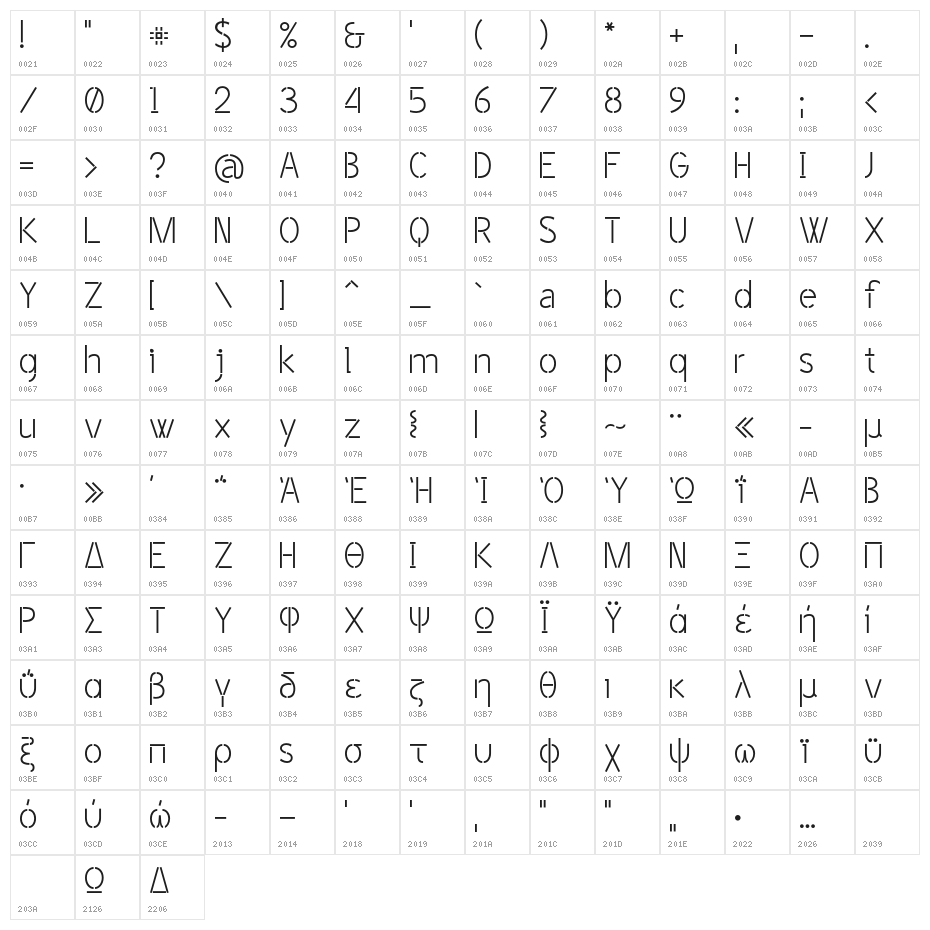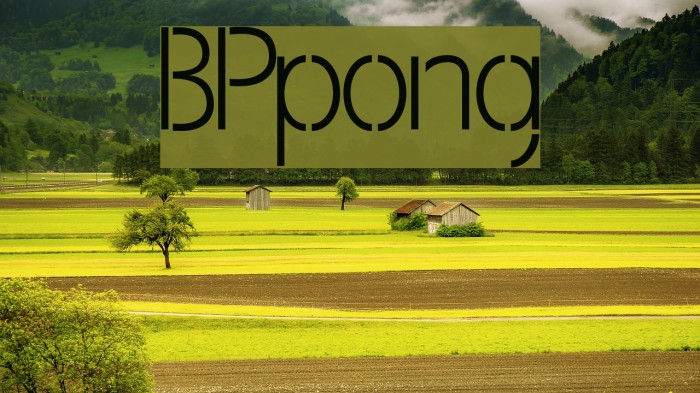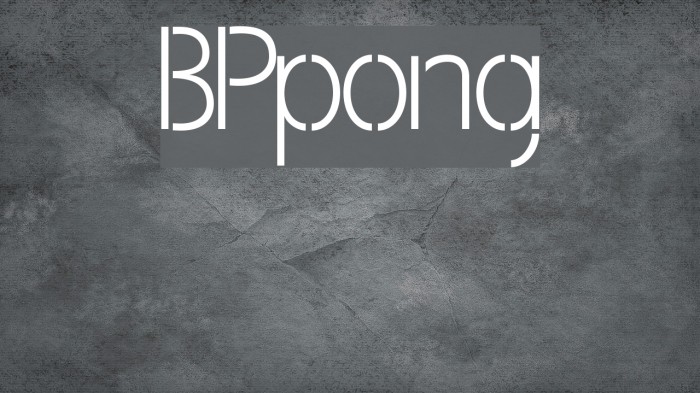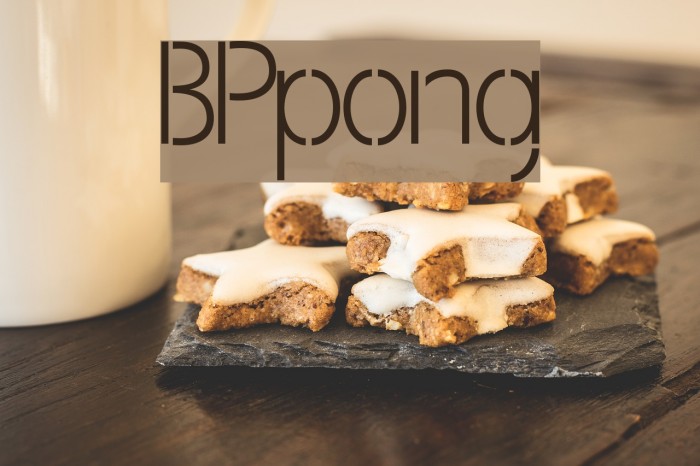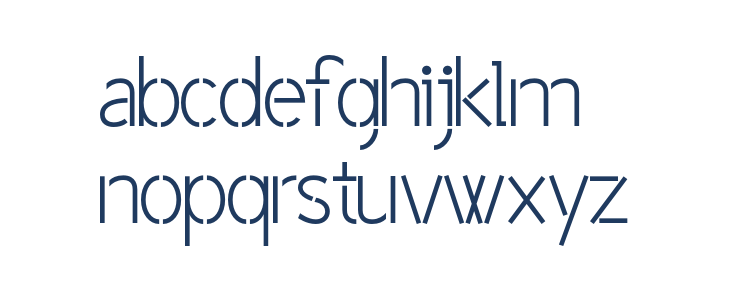
BPpong Font
BPpong Description
This font features a modern and geometric design with clean, straight lines and a consistent stroke width. The uppercase letters are tall and narrow, giving a sleek and sophisticated appearance. The lowercase letters maintain a similar style, with rounded edges that add a touch of softness to the overall look. The numbers are clear and easy to read, matching the style of the alphabet. Special characters are well-integrated, maintaining the font's cohesive aesthetic. The font's uniformity and precision make it suitable for a variety of design applications.
| Width | Condensed |
| Use Case | Headlines, Logos, Digital interfaces |
| Proposed Projects | Ideal for branding, advertising, digital interfaces, and modern print materials. |